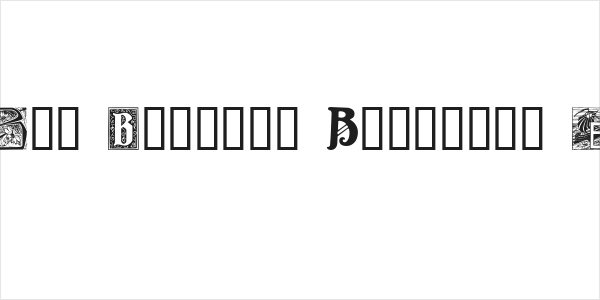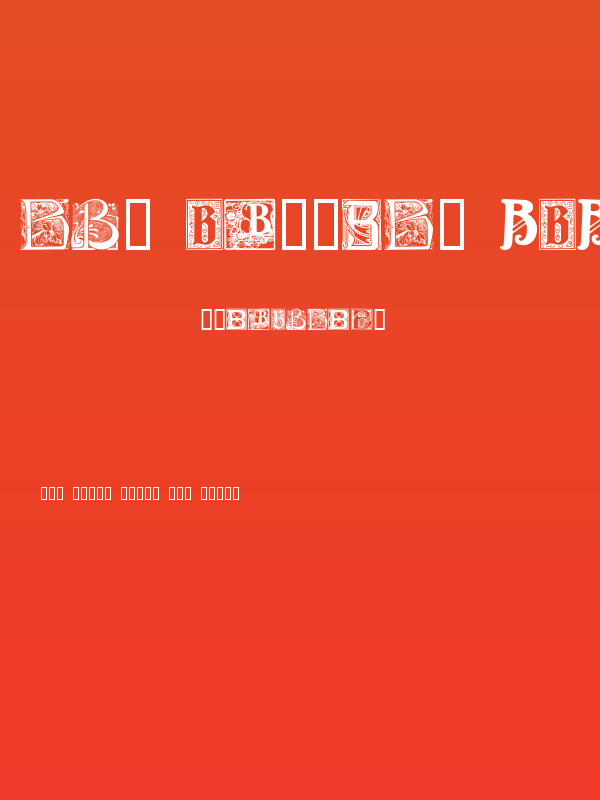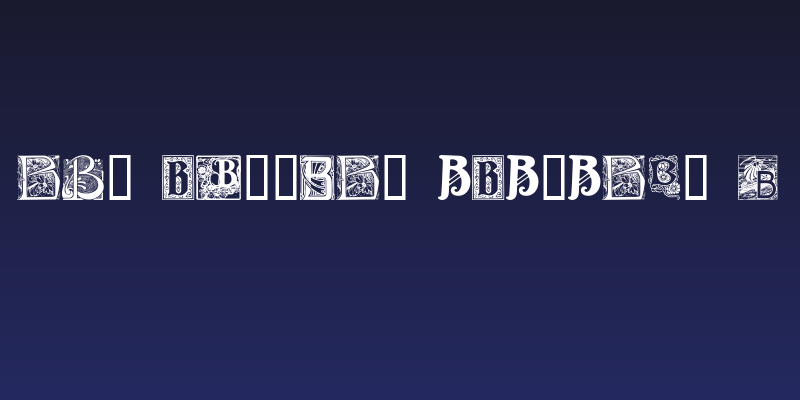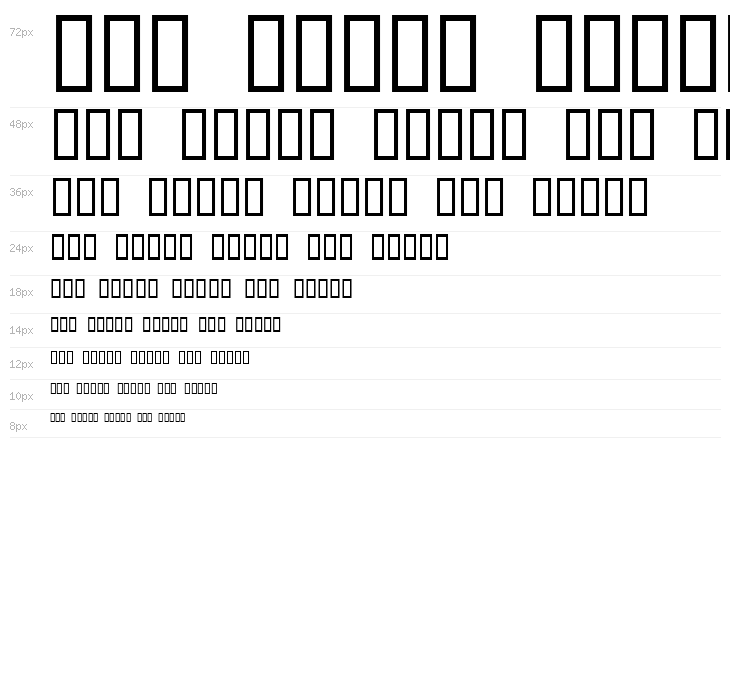
Art Nouveau Initials B Font
Art Nouveau Initials B Description
This font is a decorative and ornate style inspired by the Art Nouveau movement, characterized by its intricate and elaborate designs. Each letter is enclosed within a square frame, featuring detailed floral and natural motifs that intertwine with the letterforms. The style is highly decorative, making it suitable for artistic and creative projects. The letters are bold and prominent, with a strong emphasis on curves and flowing lines, capturing the essence of the Art Nouveau aesthetic. This font is ideal for use in projects that require a touch of elegance and sophistication, such as invitations, posters, and artistic branding.
| Proposed Projects | Ideal for invitations, artistic branding, posters, and decorative projects. |